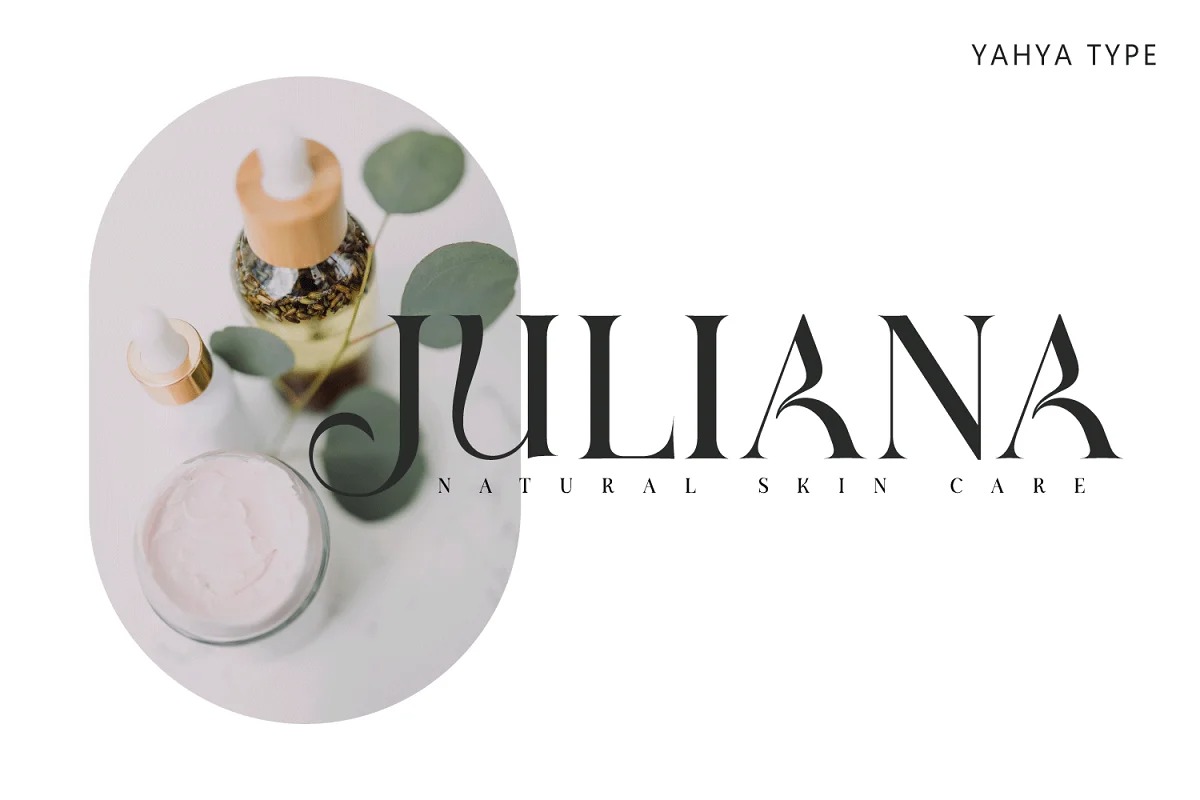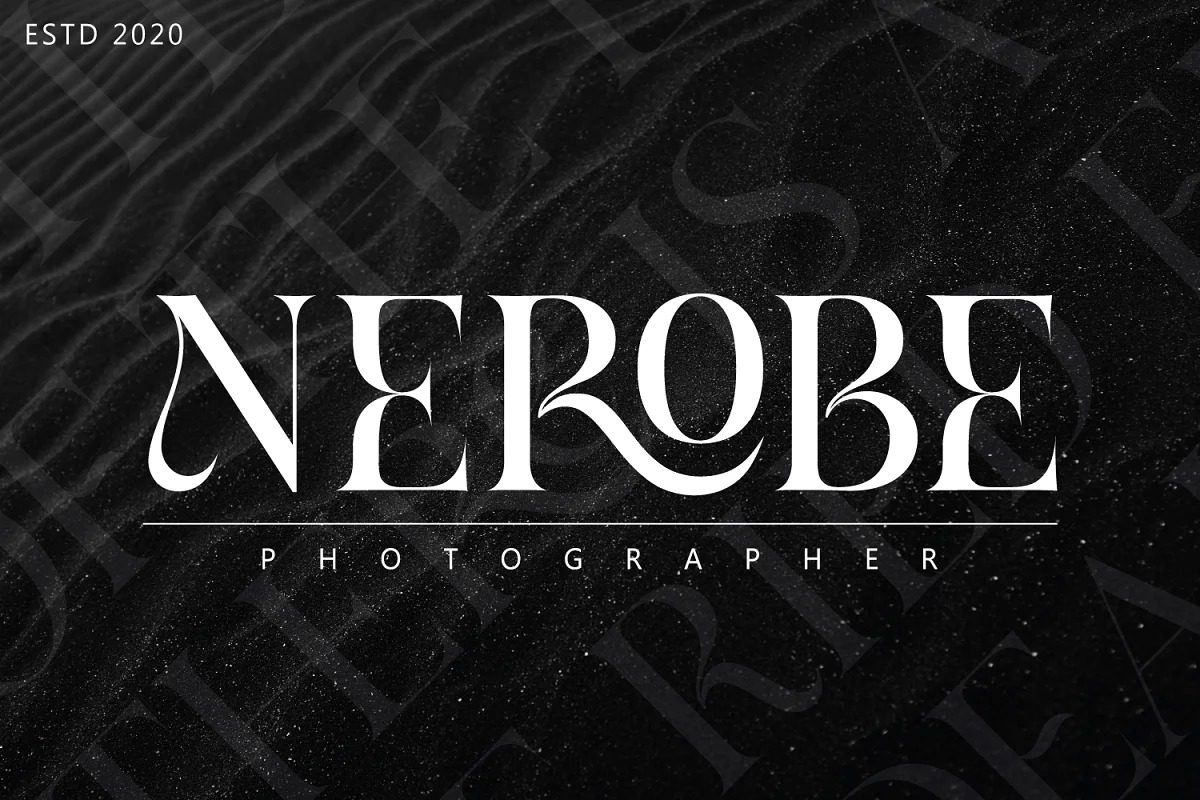
Mitreba Font
Mitreba Serif Font
This is a classic serif typeface created by Yahya Type with a luxury, elegant, modern, unique and classy look. This style works well for branding projects, logo, wedding designs, social media posts, advertisements, product packaging, product designs, label, photography, watermark, invitation, or whatever project you’re working on.